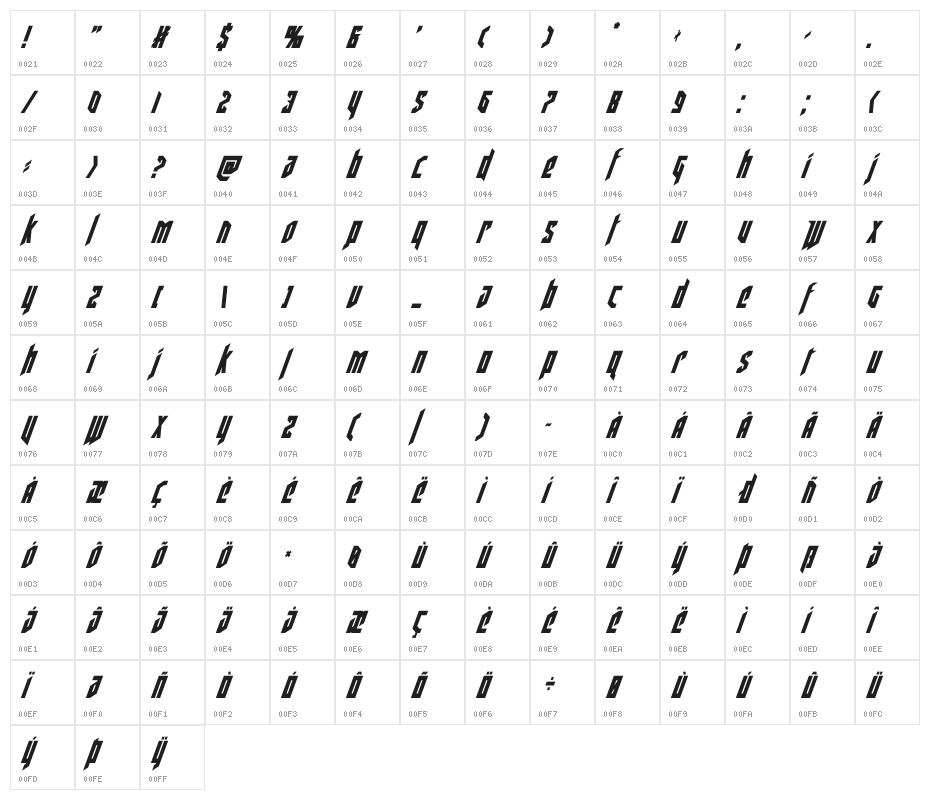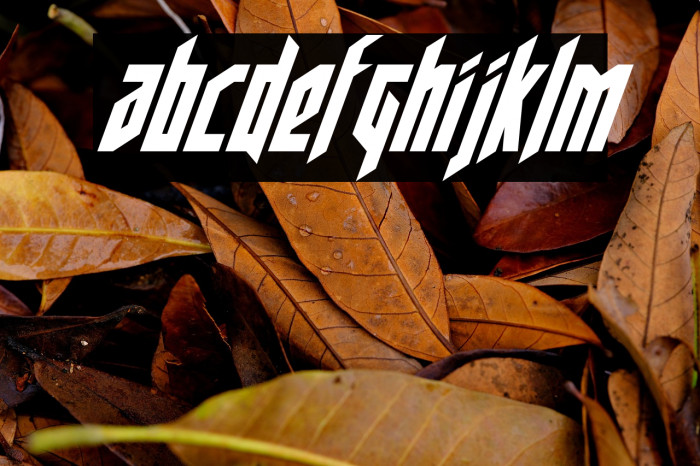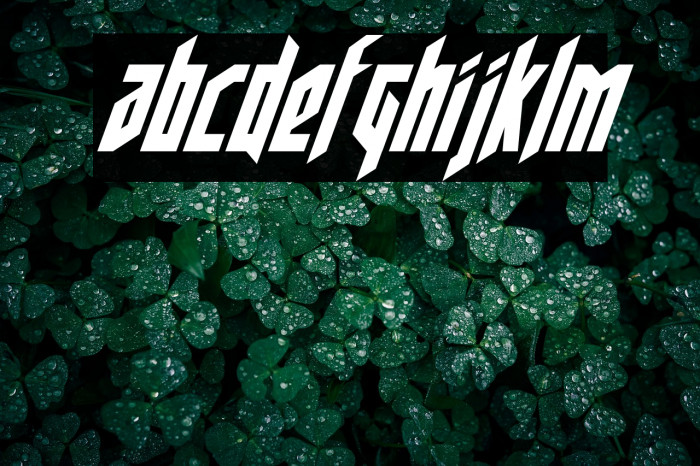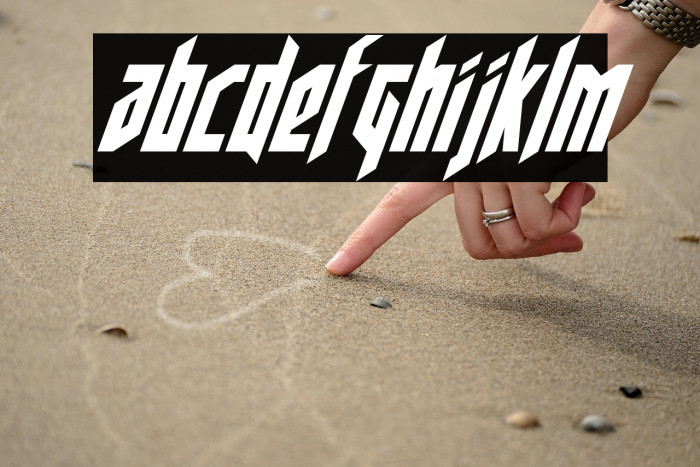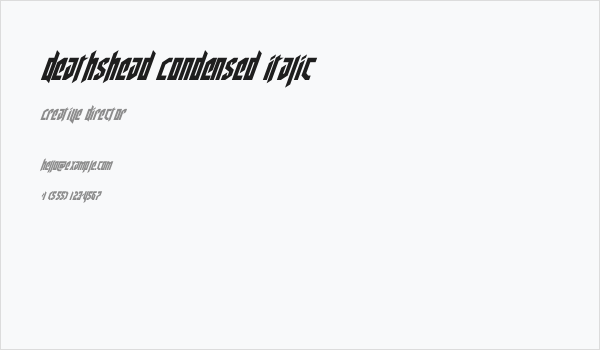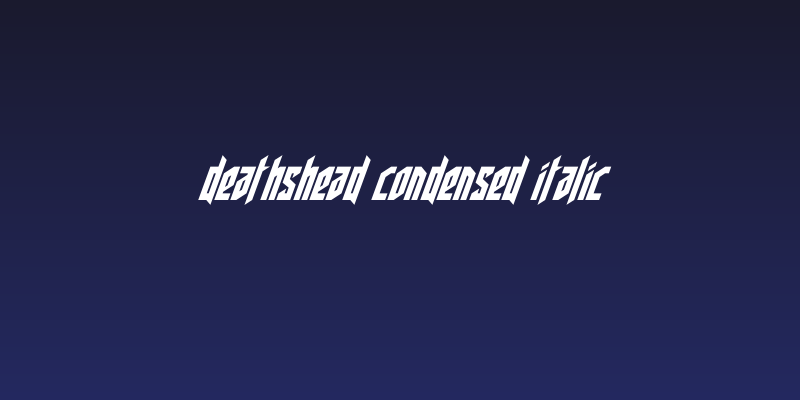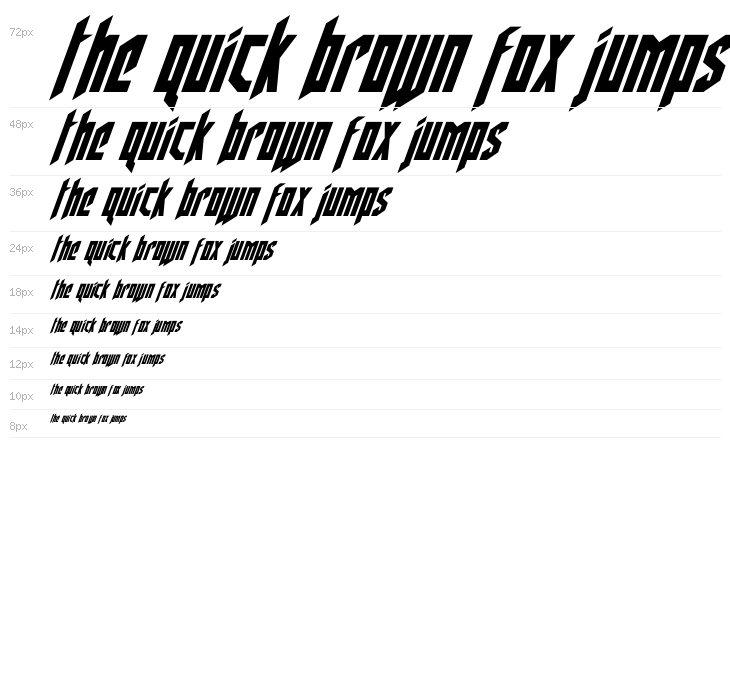
Deathshead Condensed Italic Font
Deathshead Condensed Italic Description
This font features a bold, angular design with a distinct condensed and italicized style. The characters are sharply defined with a futuristic and aggressive appearance, making them stand out prominently. The uppercase and lowercase letters maintain a consistent slant, enhancing the italic effect. The numbers and special characters follow the same angular and condensed design, ensuring uniformity across all elements. This font's unique style is ideal for projects that require a strong visual impact.
| Overall Style | Futuristic, Aggressive |
| Proposed Projects | Ideal for video game titles, sci-fi movie posters, edgy branding, and sports team logos. |